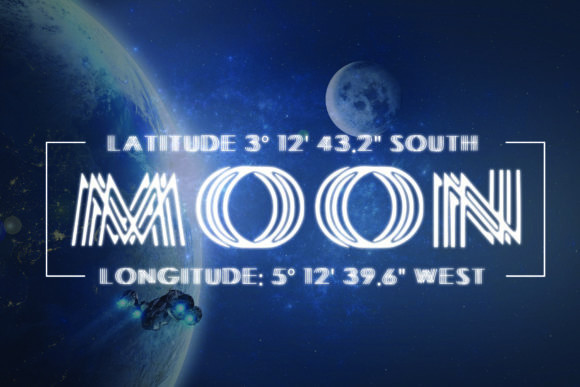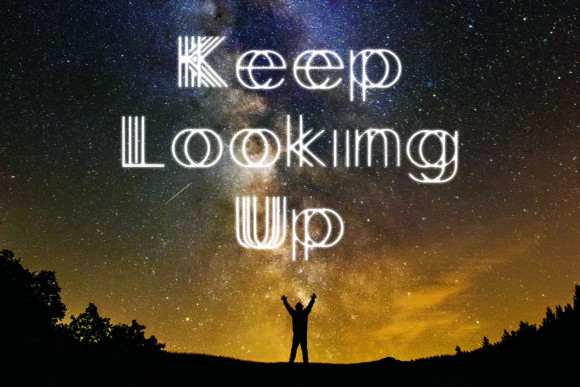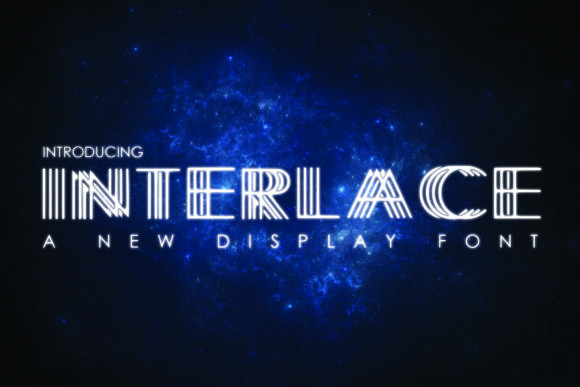
Interlace Font
Interlace is a unique and creative display font that has been handcrafted with passion. It can add a futuristic appearance to any crafting project!